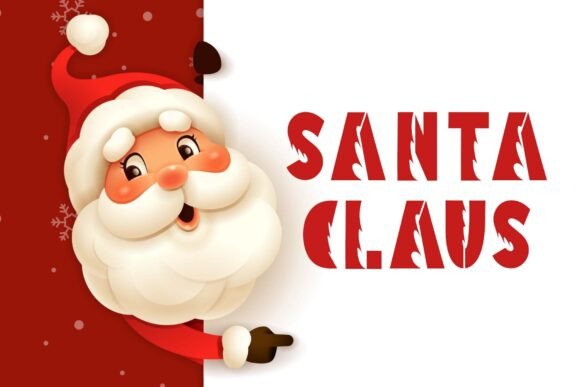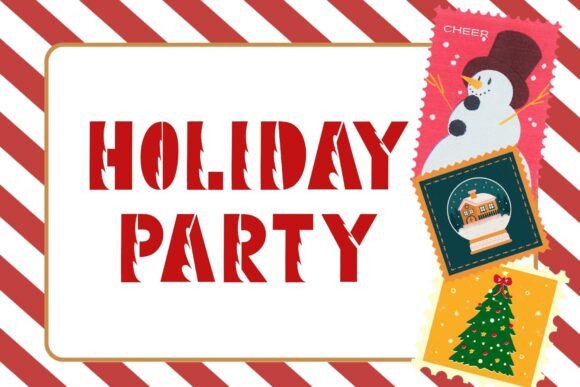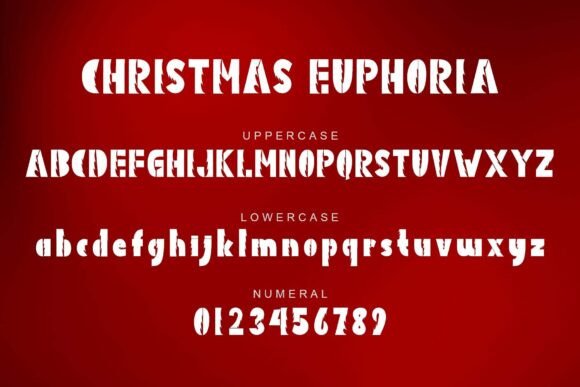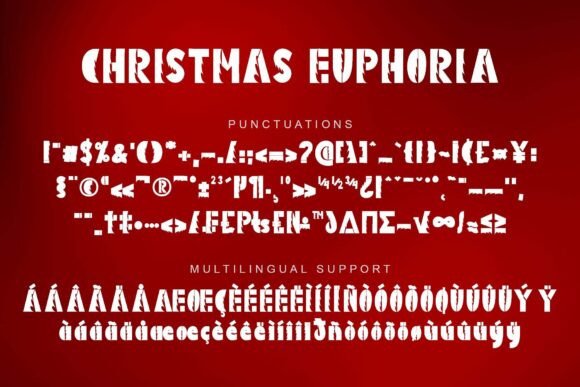
Introducing Christmas Euphoria Font: The Ultimate Holiday Display Font
Are you looking for a font that captures the essence of the holiday season? Look no further than Christmas Euphoria Font, a unique and elegant display font that’s perfect for adding a touch of festive flair to your designs. In this article, we’ll dive into the features and benefits of Christmas Euphoria Font, and explore how it can elevate your holiday-themed projects.
What is Christmas Euphoria Font?
Christmas Euphoria Font is a specially designed display font that’s perfect for creating eye-catching holiday-themed designs. With its elegant and sophisticated style, this font is sure to add a touch of luxury to your projects. The font comes with a range of features, including uppercase, lowercase, numerals, punctuations, and multilingual support, making it versatile and easy to use.
Key Features of Christmas Euphoria Font
- Uppercase and Lowercase Letters: Christmas Euphoria Font includes both uppercase and lowercase letters, allowing you to create a wide range of designs, from bold and dramatic to subtle and elegant.
- Numerals and Punctuations: The font also includes a range of numerals and punctuations, making it easy to add numbers and special characters to your designs.
- Multilingual Support: With multilingual support, you can use Christmas Euphoria Font to create designs in a variety of languages, making it perfect for international holiday-themed projects.
Use Cases for Christmas Euphoria Font
Christmas Euphoria Font is incredibly versatile, and can be used for a wide range of holiday-themed projects, including:
- Christmas Designs: Create stunning Christmas-themed designs, including posters, flyers, and social media graphics.
- Summer and Spring Designs: The font’s elegant style also makes it perfect for summer and spring-themed designs, such as beach posters and floral arrangements.
- 4th of July and Father’s Day Designs: Add a touch of patriotism to your 4th of July and Father’s Day designs with Christmas Euphoria Font.
- Branding and Logo Design: Use Christmas Euphoria Font to create custom logos and branding materials for your business, including stickers, labels, and packaging.
- Posters and Print Materials: Create eye-catching posters, flyers, and print materials for your holiday-themed events and promotions.
Benefits of Using Christmas Euphoria Font
So why choose Christmas Euphoria Font for your holiday-themed designs? Here are just a few benefits:
- Unique and Elegant Style: Christmas Euphoria Font has a unique and elegant style that’s sure to stand out from the crowd.
- Versatility: The font’s range of features, including multilingual support, make it incredibly versatile and easy to use.
- Easy to Read: Despite its elegant style, Christmas Euphoria Font is easy to read, making it perfect for use in a variety of designs.
Tips for Using Christmas Euphoria Font
Here are a few tips for getting the most out of Christmas Euphoria Font:
- Experiment with Different Sizes: Christmas Euphoria Font looks great in a range of sizes, from small and subtle to large and dramatic.
- Pair with Other Fonts: Try pairing Christmas Euphoria Font with other fonts to create a unique and eye-catching design.
- Use in Combination with Images: Use Christmas Euphoria Font in combination with images to create stunning holiday-themed designs.
Christmas Euphoria Font is a unique and elegant display font that’s perfect for adding a touch of festive flair to your holiday-themed designs. With its range of features, including uppercase, lowercase, numerals, punctuations, and multilingual support, this font is versatile and easy to use. Whether you’re creating Christmas designs, summer and spring designs, or branding and logo materials, Christmas Euphoria Font is the perfect choice.